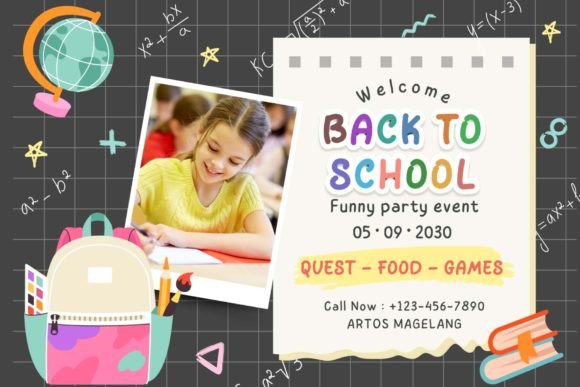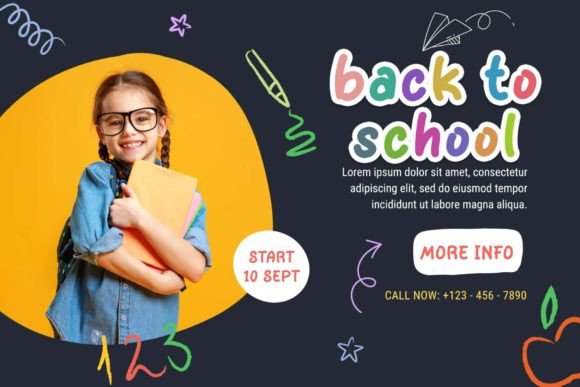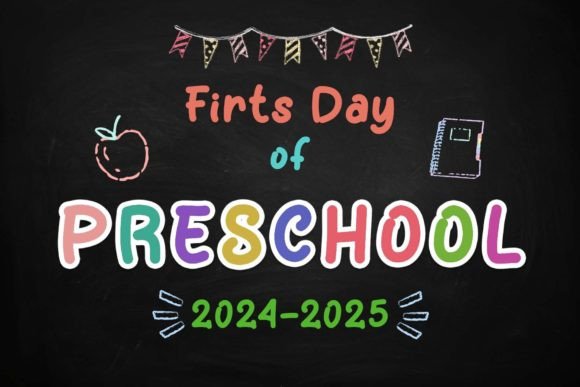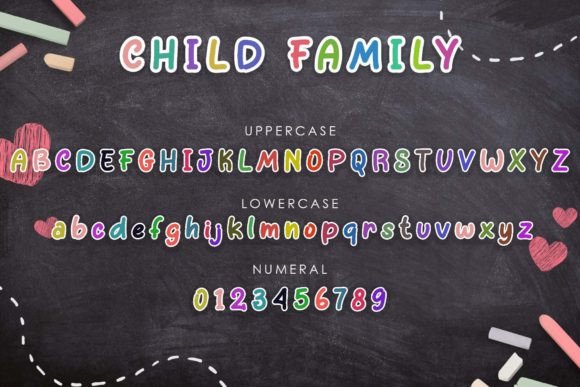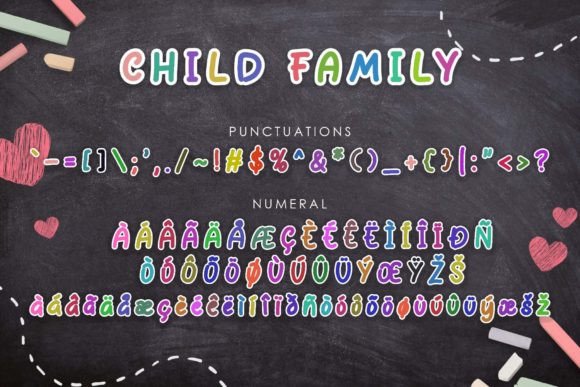
Introducing Child Family Font: The Perfect Addition to Your Design Arsenal
Are you a designer or crafter looking for a unique and adorable font to elevate your creative projects? Look no further than the Child Family Font! This charming display font is designed to bring a touch of innocence and playfulness to your designs, making it perfect for a wide range of applications.
What Makes Child Family Font So Special?
The Child Family Font is a one-of-a-kind, cute display font that is equipped with a comprehensive set of characters, including uppercase and lowercase letters, numerals, punctuations, and multilingual support. This means that you can use it to create a variety of designs, from logos and stickers to banners, posters, prints, and more.
Perfect for Various Occasions and Projects
One of the best things about the Child Family Font is its versatility. It’s suitable for a wide range of occasions and projects, including:
- Back to school designs
- School projects and materials
- Teacher appreciation gifts and designs
- Father’s Day cards and gifts
- Christmas decorations and gifts
- 4th of July celebrations and decorations
- Summer-themed designs and projects
- Stickers and labels
- Banners and posters
- Prints and artwork
- Mugs and other personalized items
Why Designers and Crafters Love Child Family Font
So, why do designers and crafters love the Child Family Font? Here are just a few reasons:
- Unique and eye-catching: The Child Family Font is a one-of-a-kind font that’s sure to grab attention and make your designs stand out.
- Easy to read: Despite its playful and whimsical nature, the Child Family Font is easy to read, making it perfect for designs that need to convey a message.
- Versatile: As mentioned earlier, the Child Family Font is suitable for a wide range of projects and occasions, making it a great addition to any design arsenal.
- Multilingual support: With multilingual support, you can use the Child Family Font to create designs for a global audience.
How to Use Child Family Font in Your Designs
Using the Child Family Font in your designs is easy! Here are a few tips to get you started:
- Pair it with other fonts: Experiment with pairing the Child Family Font with other fonts to create a unique and visually appealing design.
- Use it for headings and titles: The Child Family Font is perfect for headings and titles, where its playful and whimsical nature can really shine.
- Add some color: The Child Family Font looks great in a variety of colors, so don’t be afraid to experiment and find the perfect hue for your design.
In conclusion, the Child Family Font is a unique and adorable font that’s perfect for designers and crafters looking to add a touch of innocence and playfulness to their creative projects. With its comprehensive set of characters, multilingual support, and versatility, it’s suitable for a wide range of occasions and projects. Whether you’re creating designs for back to school, teacher appreciation, or Christmas, the Child Family Font is sure to become a favorite in your design arsenal.